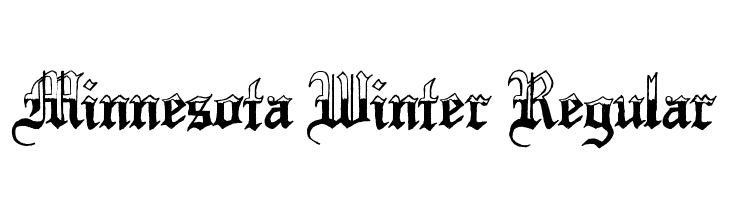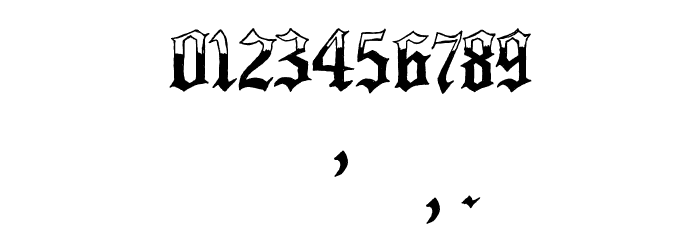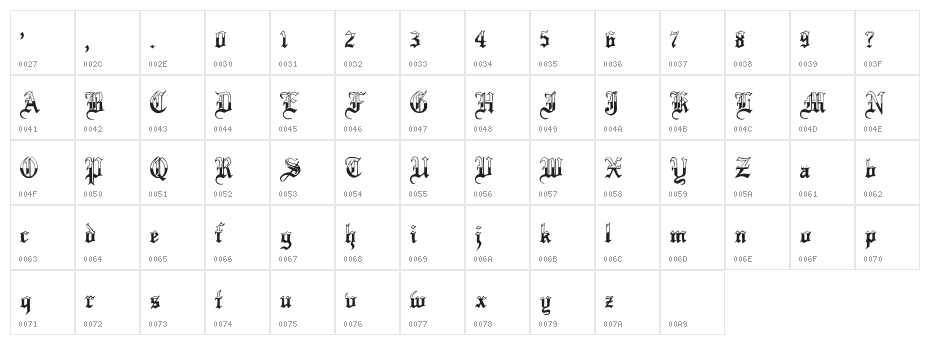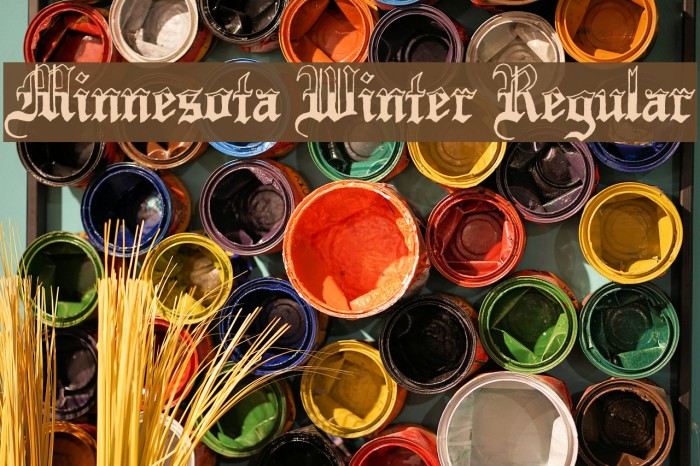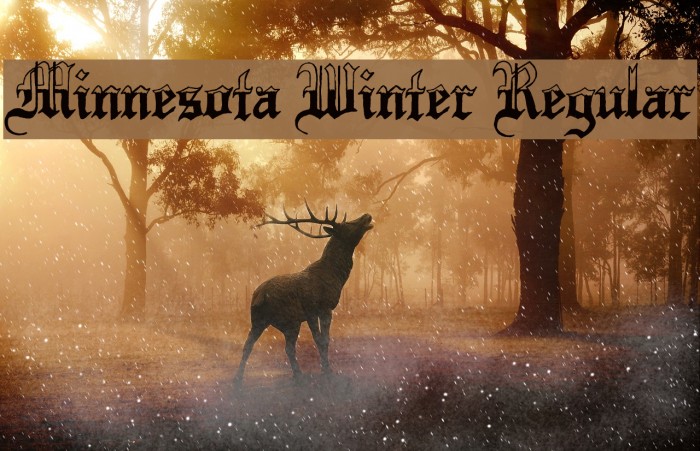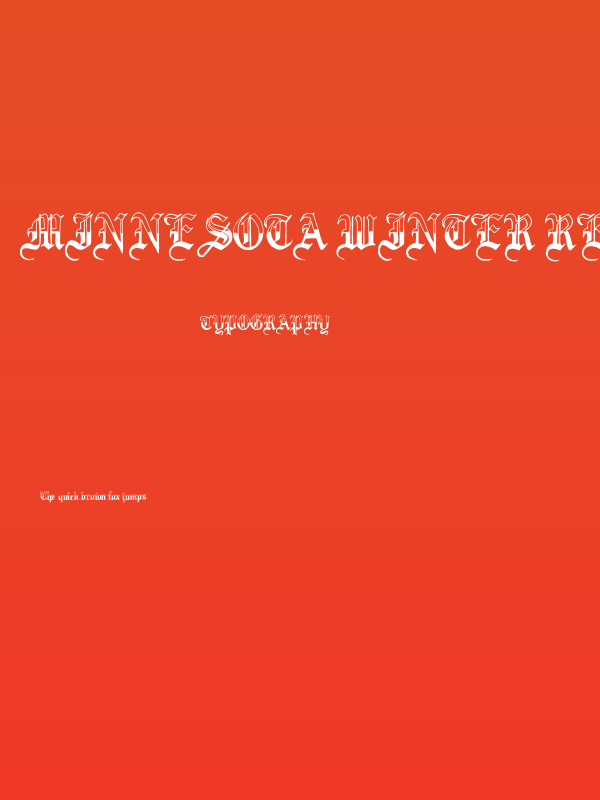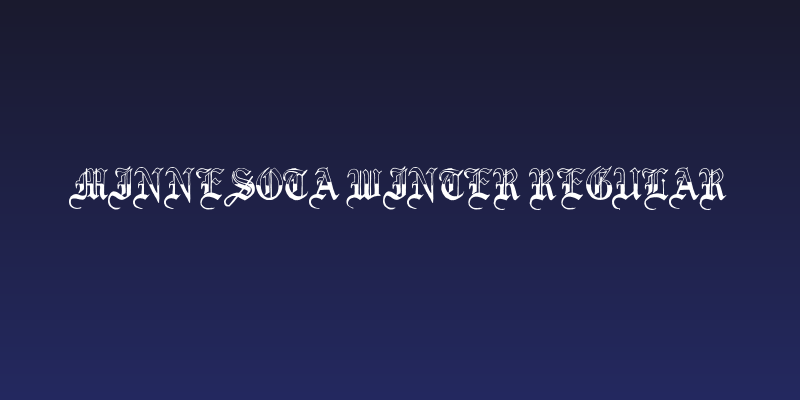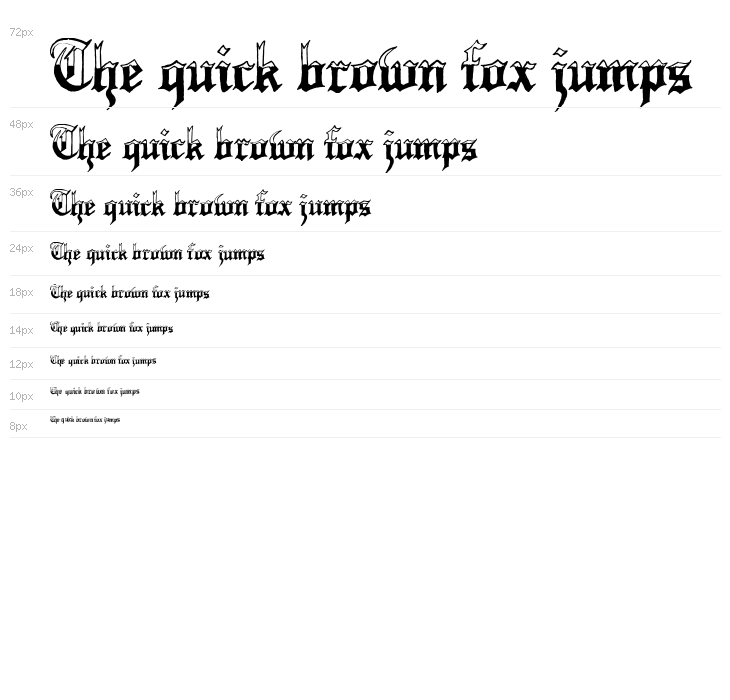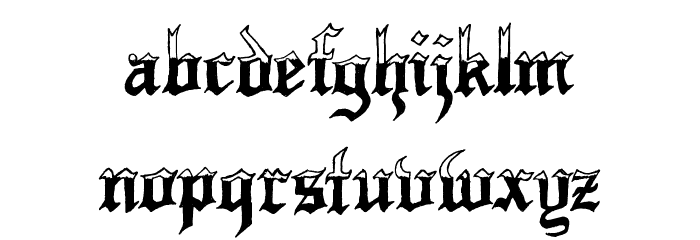
Minnesota Winter Regular Font
Minnesota Winter Regular Description
This font exhibits a classic blackletter style, characterized by its intricate and ornate letterforms. The uppercase letters are particularly elaborate, with sharp, angular strokes and decorative flourishes that evoke a sense of historical elegance. The lowercase letters maintain a consistent style, with a slightly more subdued appearance but still retaining the distinctive blackletter features. The numerals are bold and match the overall aesthetic, ensuring a cohesive look across all characters. This font is ideal for projects that require a touch of medieval or gothic flair, making it suitable for invitations, certificates, or branding that seeks to convey tradition and sophistication.
| Use Case | Headlines, Logos, Decorative |
| Proposed Projects | Ideal for medieval-themed invitations, certificates, branding, and decorative purposes. |